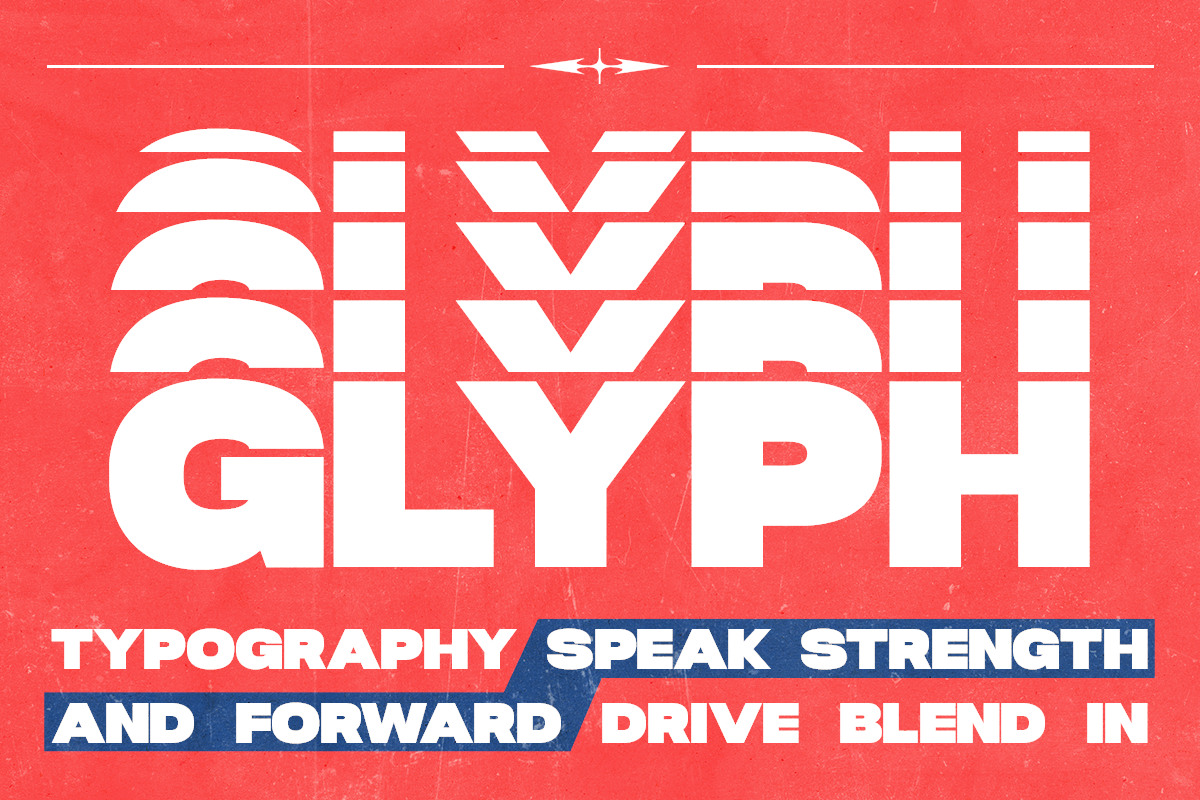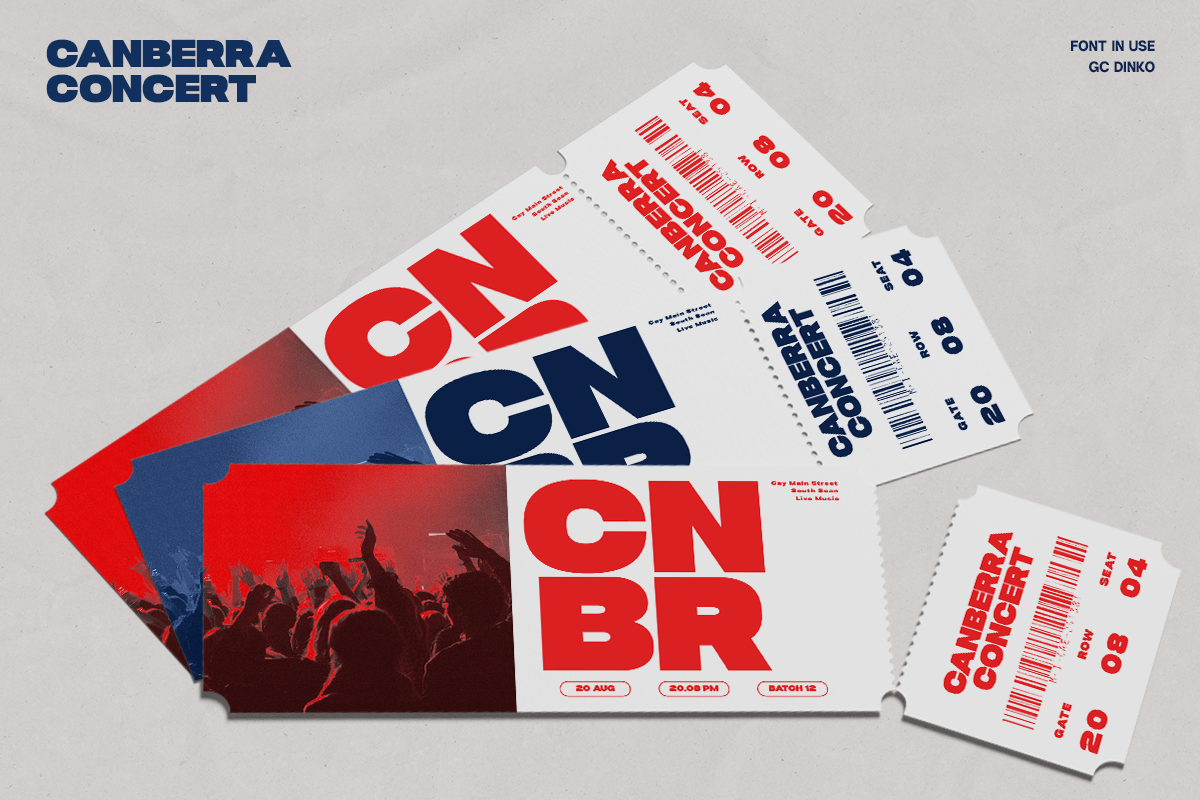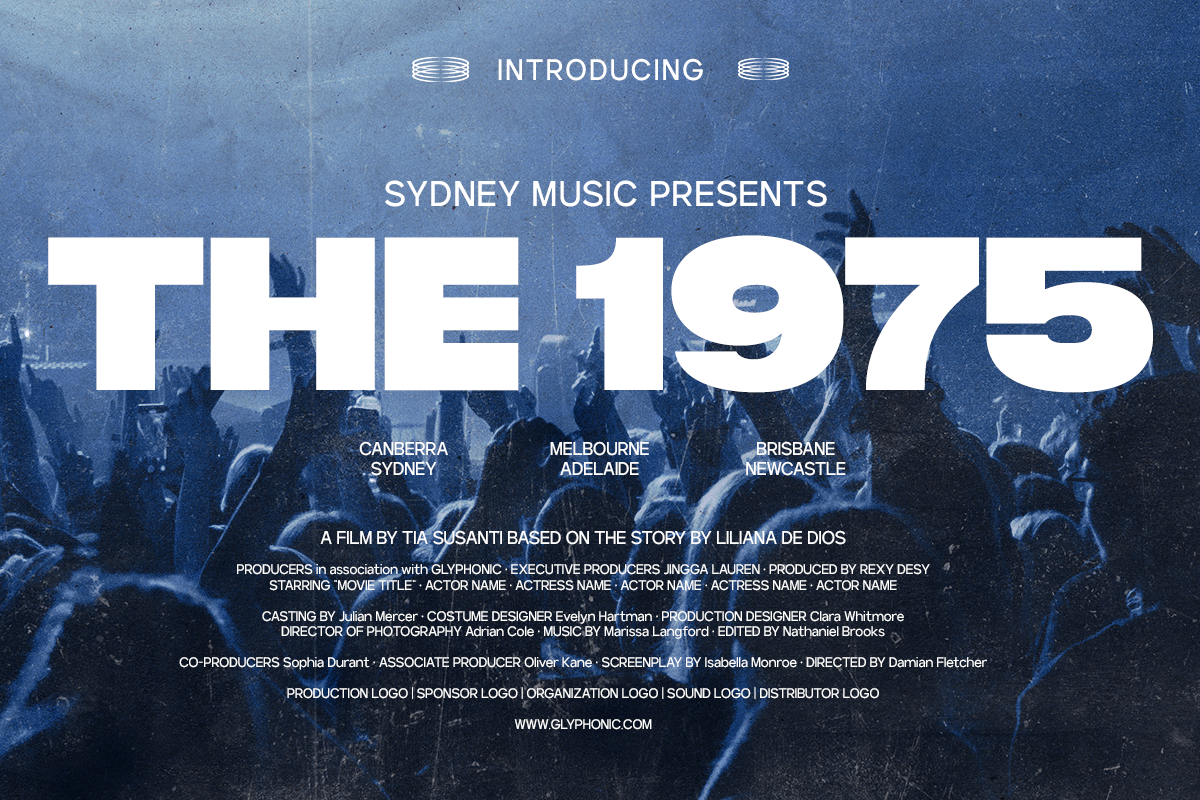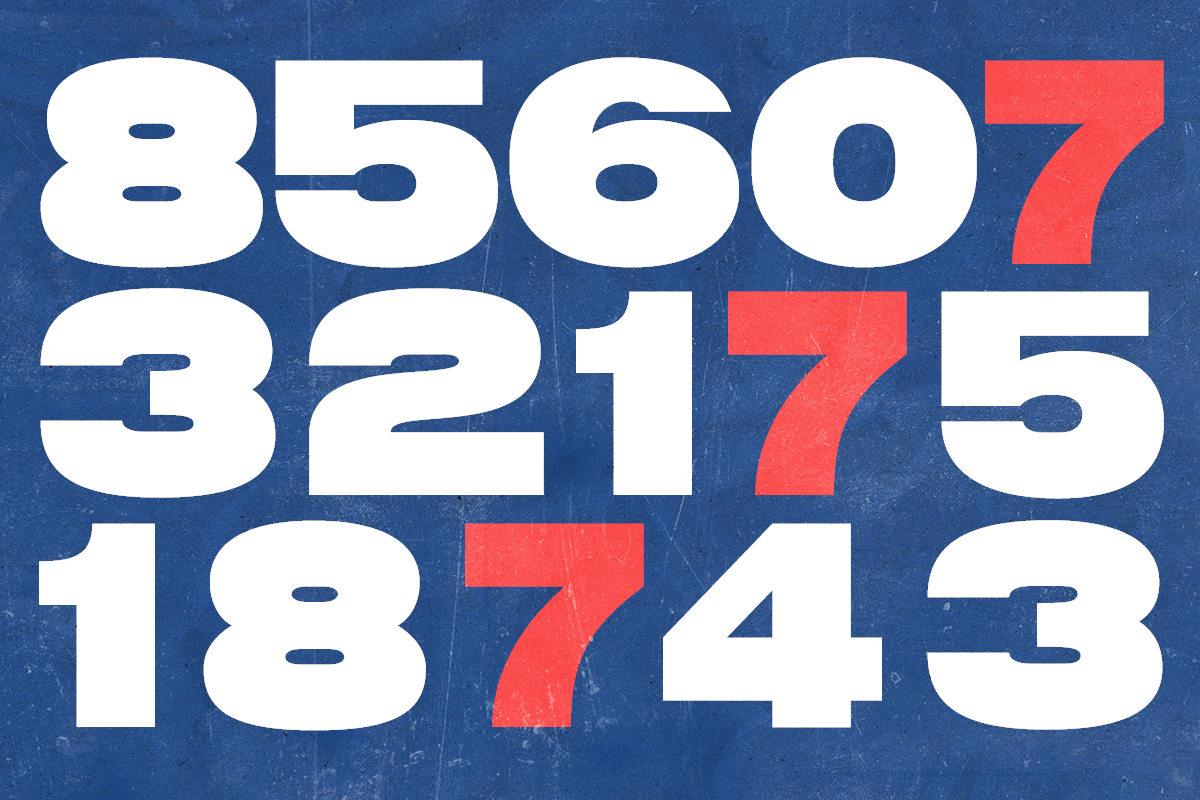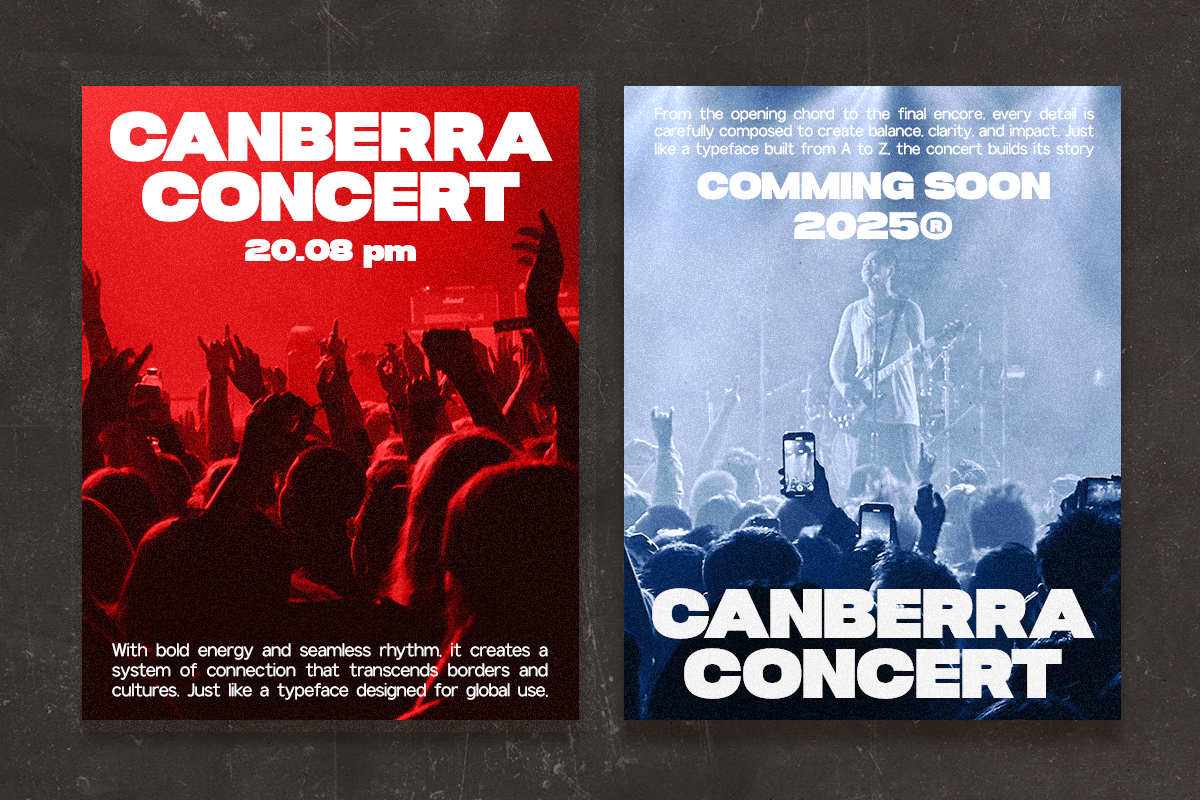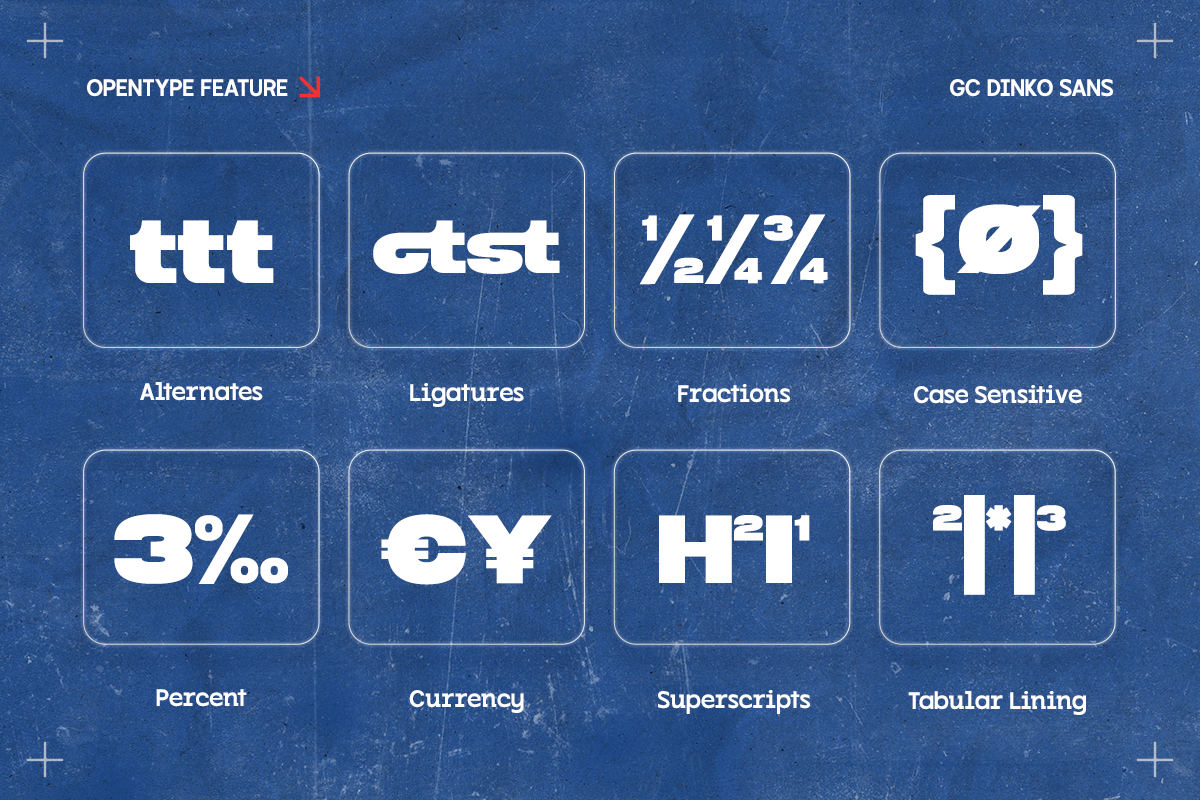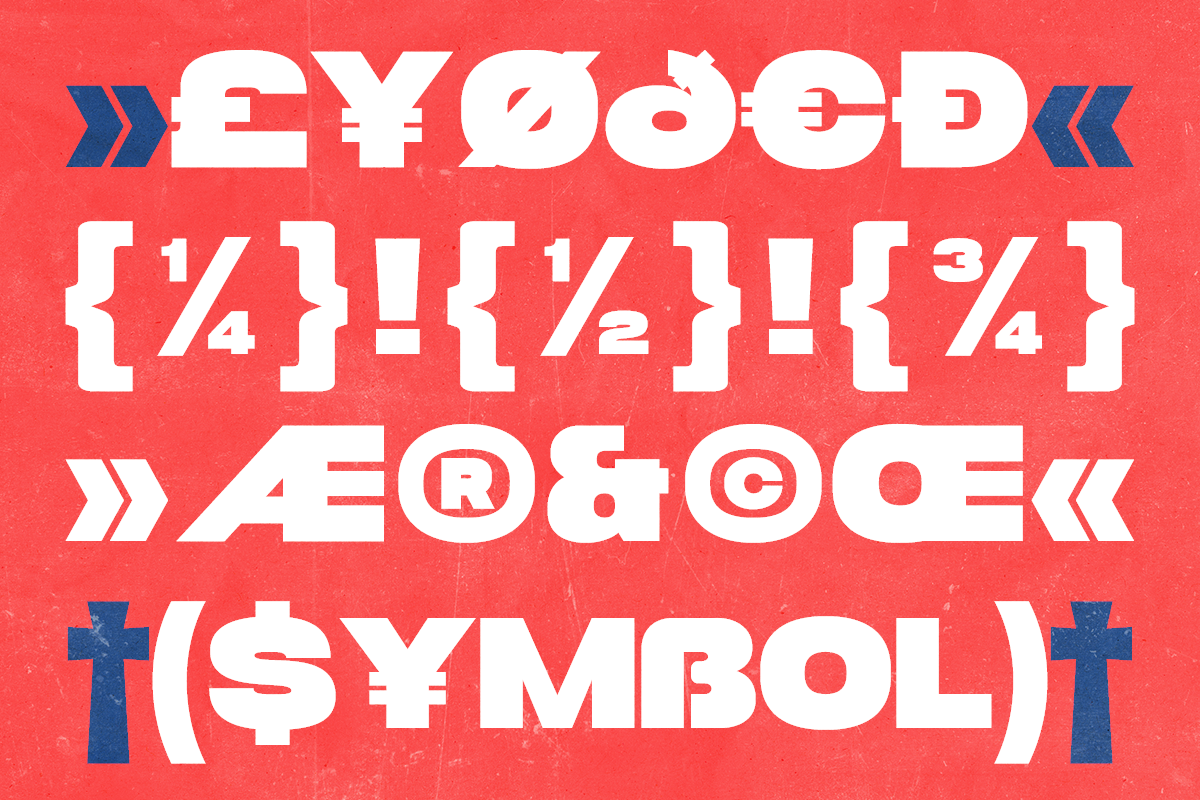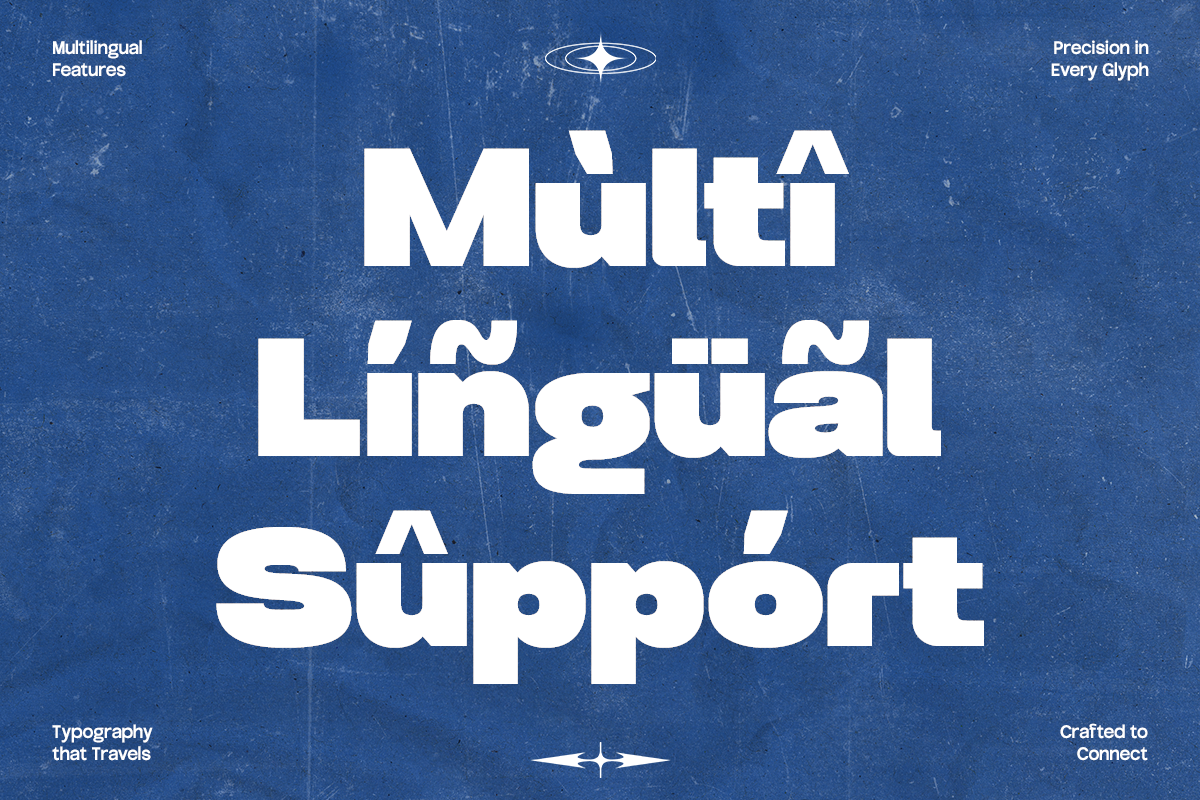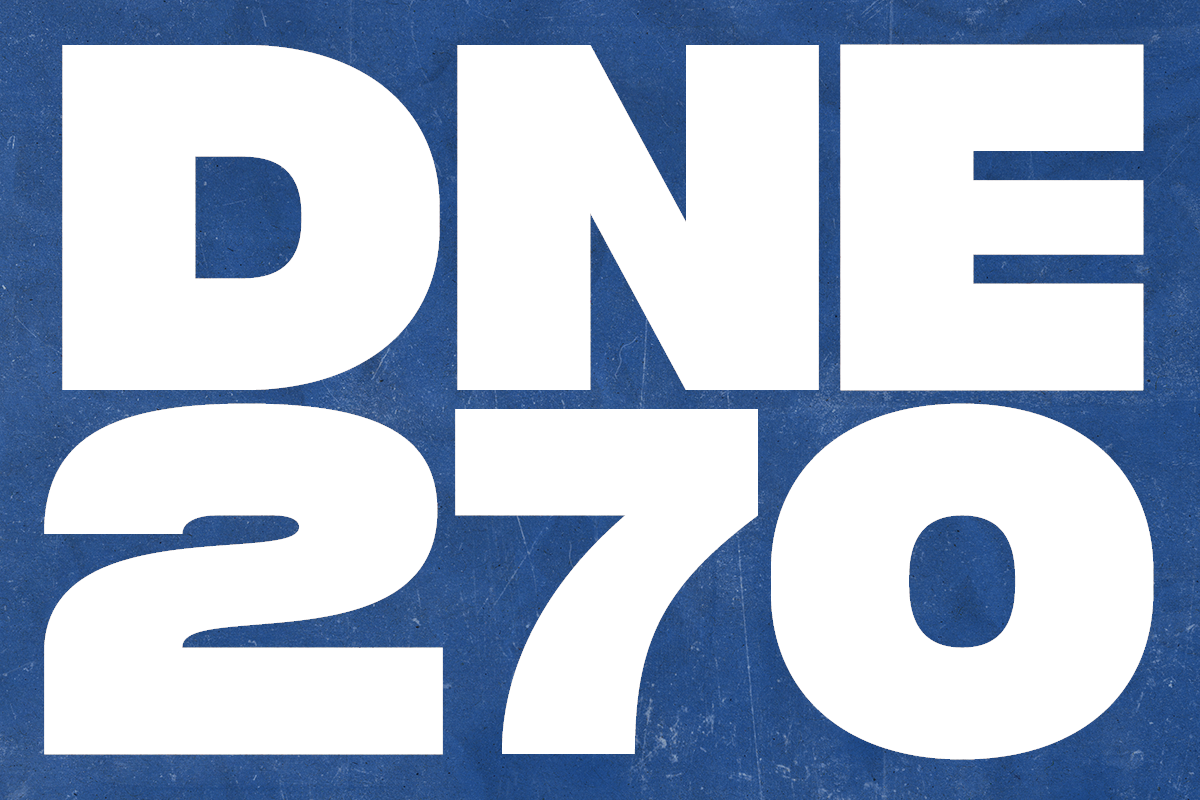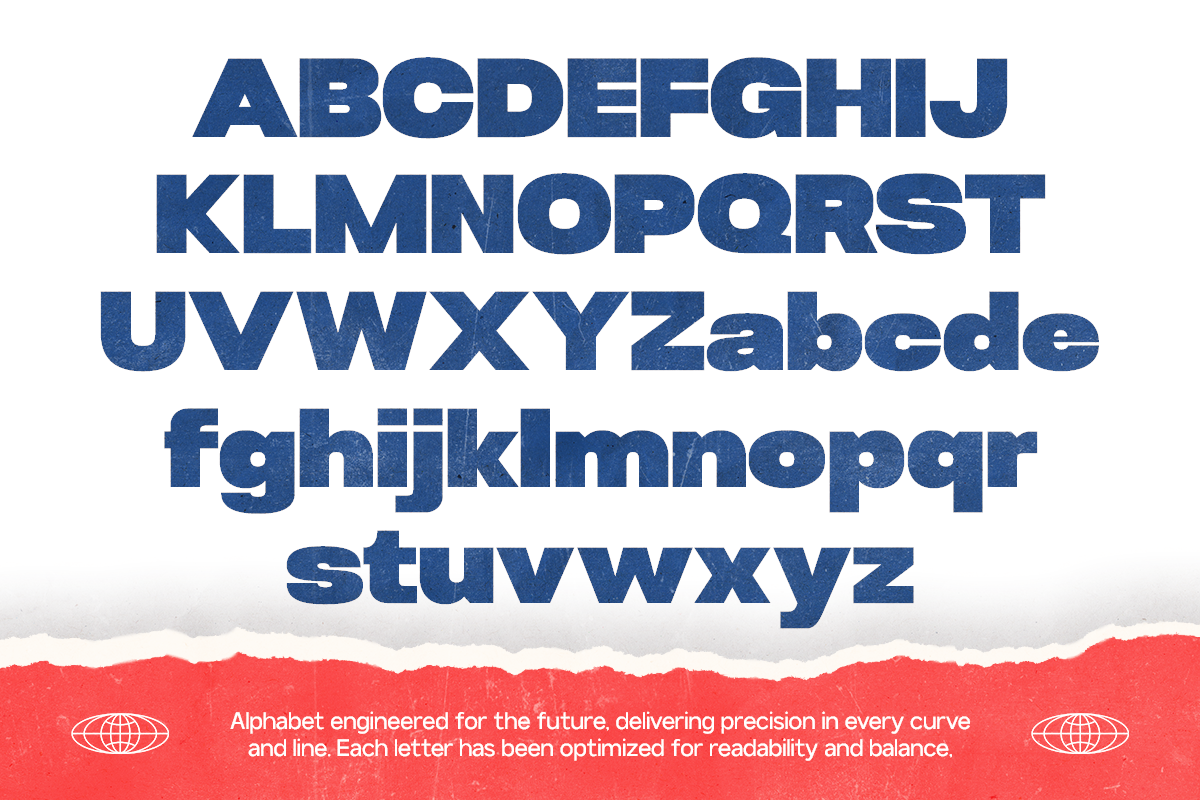
GC DINKO - Bold Sans
GC DINKO is a bold retro sans typeface that captures the spirit of vintage lettering with a modern twist. Its strong geometric shapes and solid presence bring energy, confidence, and a nostalgic charm to your typography. Perfect for posters, headlines, logos, and bold branding projects, this font makes a statement wherever it’s used.
With its striking proportions, sharp edges, and timeless retro vibe, GC DINKO balances classic inspiration with contemporary usability. Whether you’re designing eye-catching titles, retro-inspired packaging, or impactful social media graphics, this typeface delivers power and personality in every letter.
- Ligatures & Stylistic Alternates
- Multilingual Support (170+ Languages)
Make your design bold, retro, and unforgettable with GC DINKO.